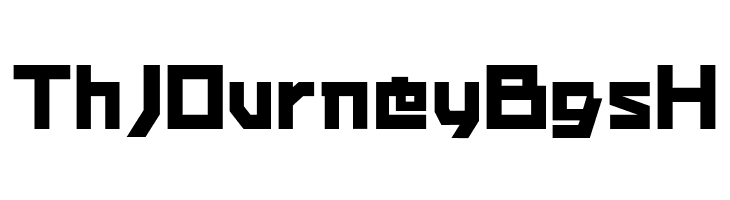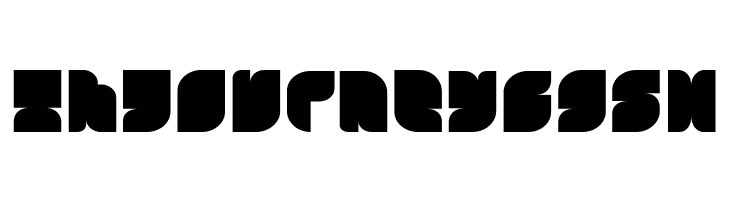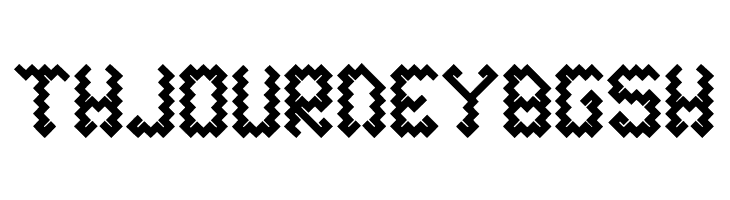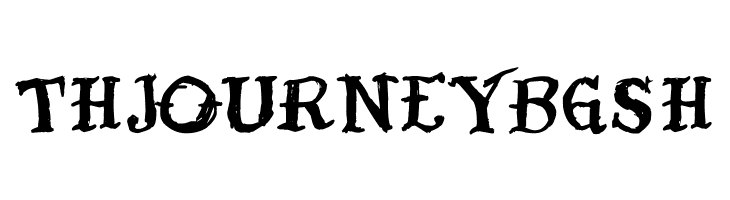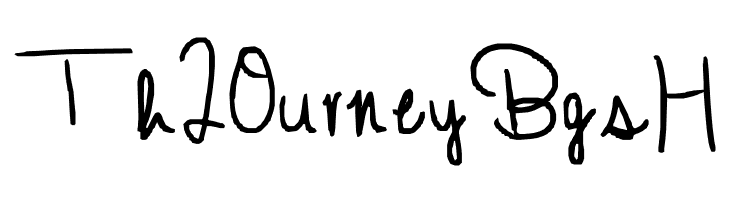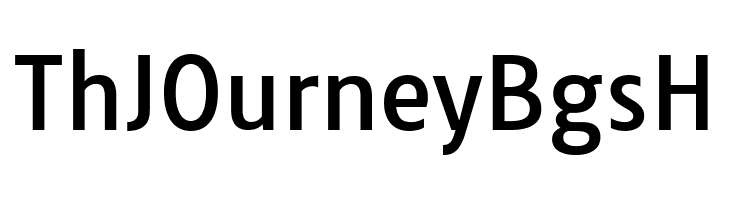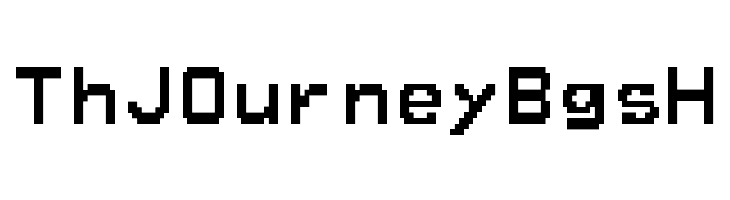
• tapestry
( Fonts by Mike Wolf )
A bold, geometric font with a zigzag pattern and consistent thickness.
• Tasious
• Tatoo Sailor
( Fonts by Juan Casco - www.juancasco.net )
A bold, vintage-style font with a rugged, hand-drawn appearance.
• Tauri-Regular
A modern, clean sans-serif font with consistent stroke width and excellent readability.
• taylor swift
• Techno Hideo
( Fonts by Paul Reid - tracertong.co.uk )
A bold, futuristic font with sharp angles and geometric shapes.
• Techno LCD
( AlQalam - Ishtiaq Ali )
A modern, geometric font with a digital, LCD-inspired design.
• Teio
A futuristic, geometric font with bold, rounded shapes and tight spacing.
• Teitokuson Bold
• Telespania Regular